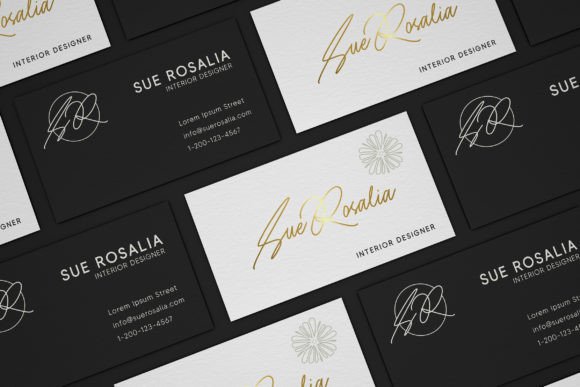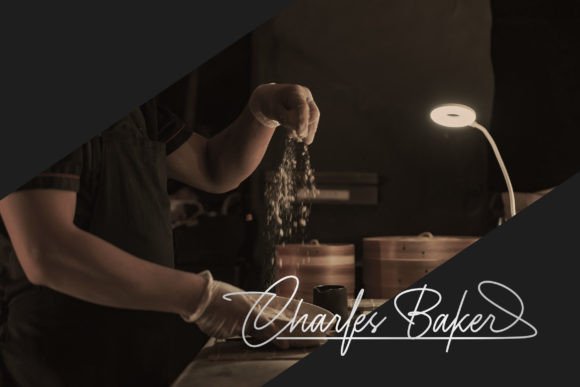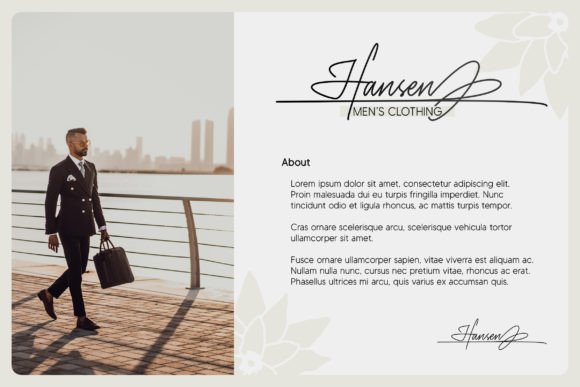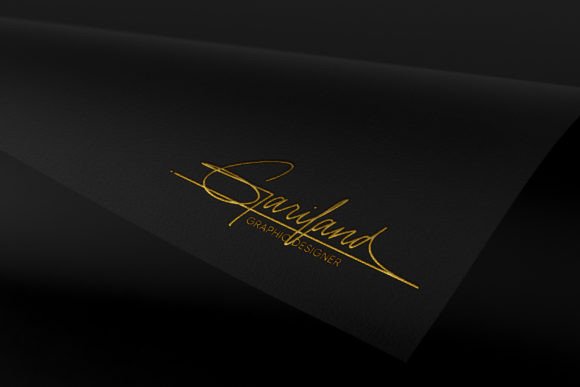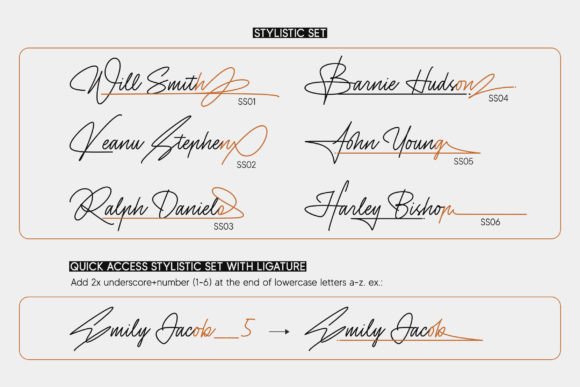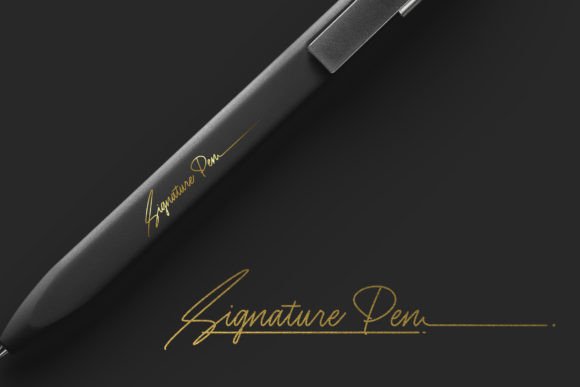
Introduction to Sinatra Font Font
Fonts play a crucial role in design, and the Sinatra Font font is a typeface that brings both character and versatility to any project. Whether you’re working on a branding project, a website, or a print design, the Sinatra Font font offers a unique style that can elevate your work.
Sinatra is an elegant signature font with a monoline style, featuring a lovely flow.
It has a clean, thin and smooth vibe and it will be a hit for any design that you want to add it to Itβs perfect for many different projects such as logos and branding, invitations, signature, labels, photography, and more.
Key Features of Sinatra Font Font
Why Choose Sinatra Font Font?
The Sinatra Font font is more than just a typeface β it’s a design tool that helps you communicate your message with style and clarity. Its unique character set and versatile design make it suitable for a wide range of applications, from elegant invitations to bold headlines.
With its carefully crafted letterforms and balanced proportions, the Sinatra Font font ensures readability and visual appeal across all mediums.
What makes Sinatra Font font special?
The Sinatra Font font stands out with its unique design, exceptional readability, and versatility across various design applications.